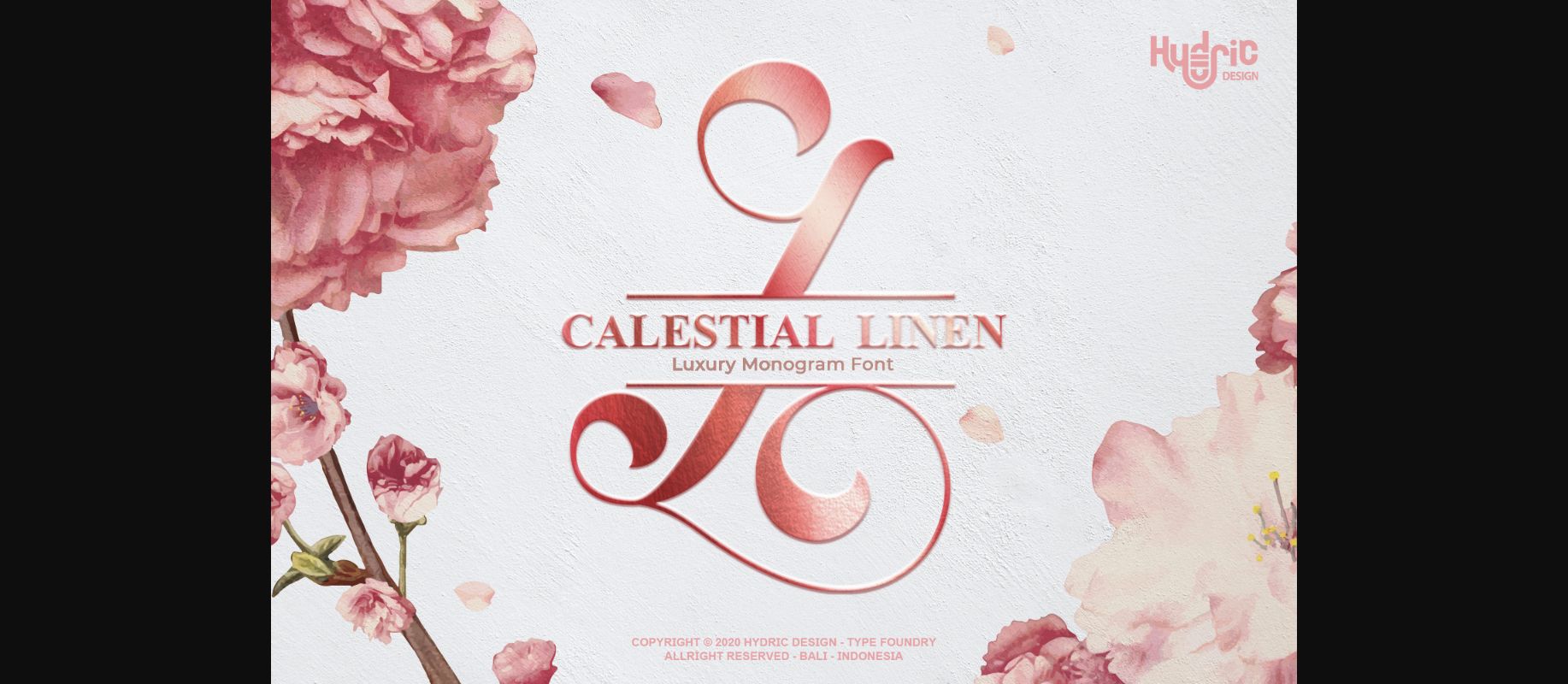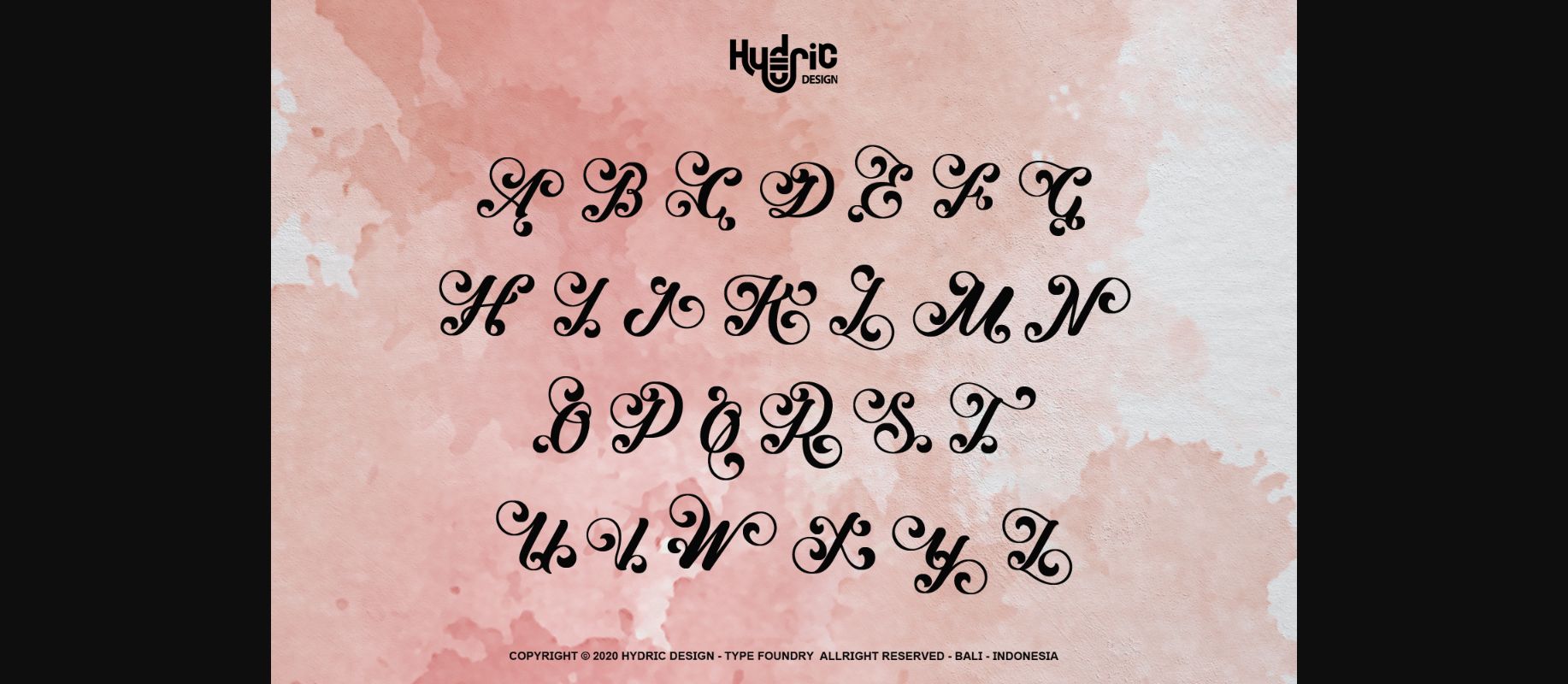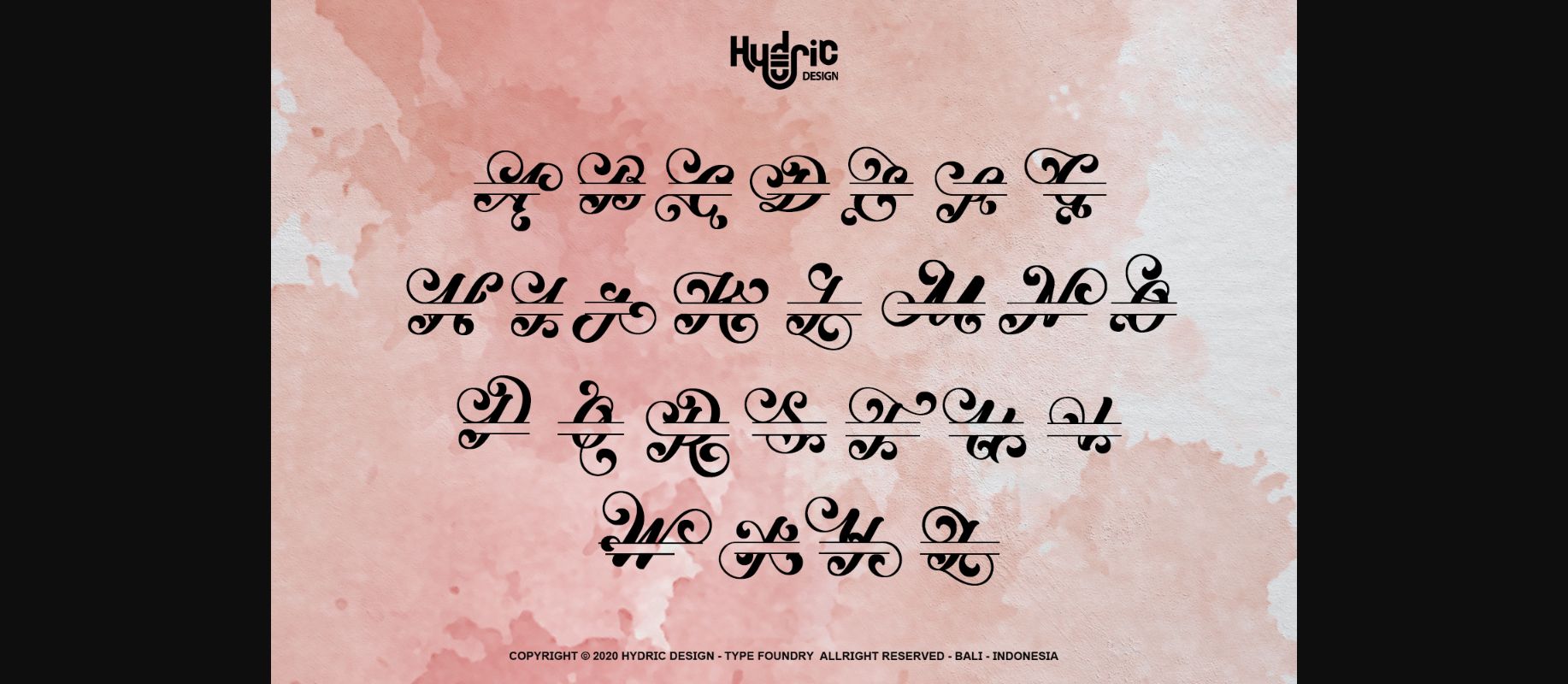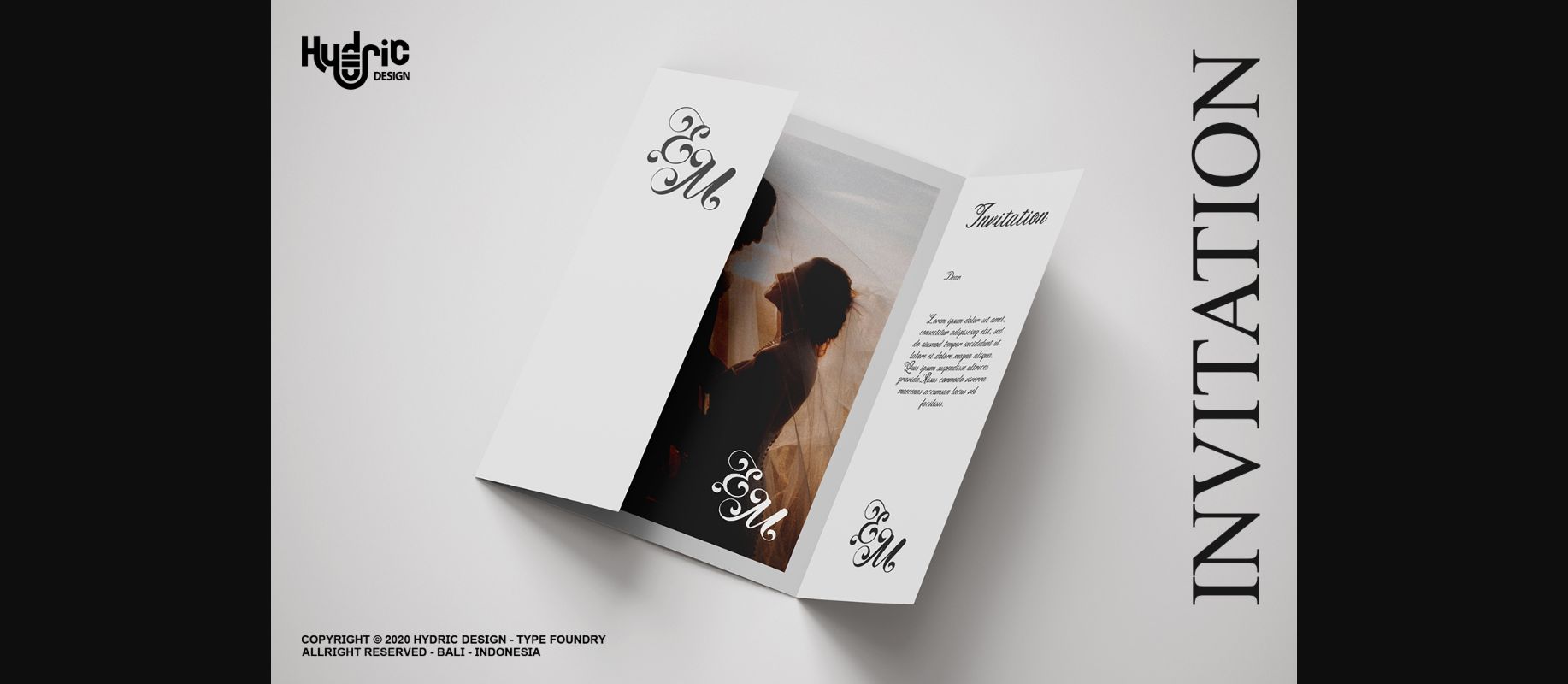
About Monogram Calestial Linen Font
Monogram Calestial Linen is a luxurious decorative font. This versatile script font has a wide spectrum of applications ranging from greeting cards to headlines and is guaranteed to add a romantic feel to your next project.